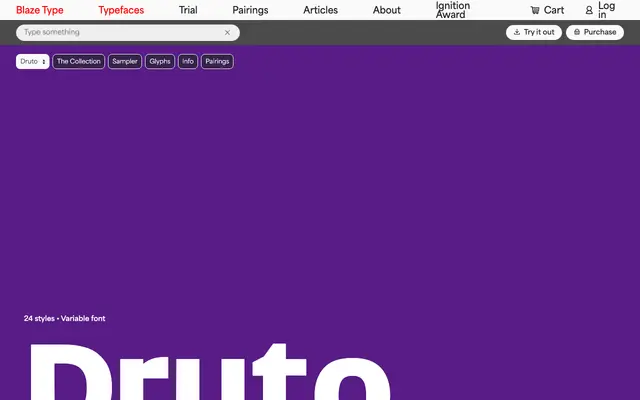
Druto
Druto specimen from Blaze Type
A text grotesque by Adrien Troy engineered to sustain legibility at minimal line spacing, using a high x-height, flat counter-forms and strong horizontal rhythm across three widths.
Released in 2025, Druto addresses the tension between space-saving and reading comfort without simply increasing the font size. Its flat counter-forms, horizontal arches and low stroke contrast reinforce a strong optical baseline, letting it hold up at line spacings that would compromise most text faces. The family spans 24 styles across Compressed, Condensed and Normal widths, each in four weights from Regular to Black with matching italics, and is available as a variable font.
A text-oriented grotesque with strong horizontal emphasis, high x-height, flat counter-forms and low contrast, engineered specifically for tight line spacing in dense continuous reading.